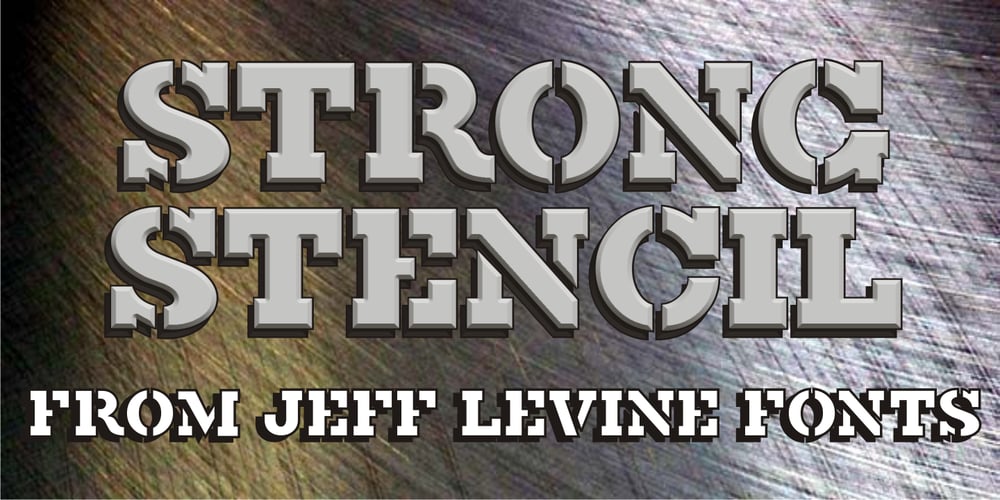
Strong Stencil JNL
Strong Stencil JNL font
Strong Stencil JNL Font Family was designed by Jeff Levine and published by Jeff Levine. Strong Stencil JNL contains 1 styles and family package options. Strong Stencil JNL derives its name from its visual appeal. Strong, rugged, all-purpose; this type design (modeled from a set of brass stencils) can take on the toughest type chores and deliver.